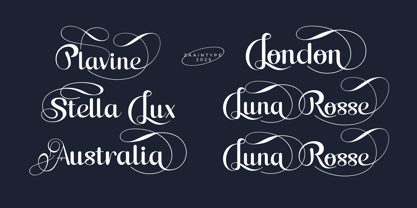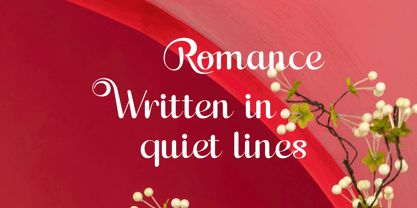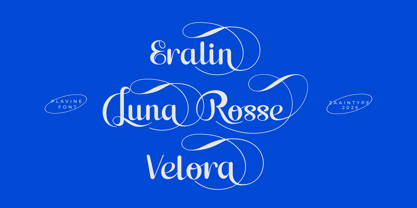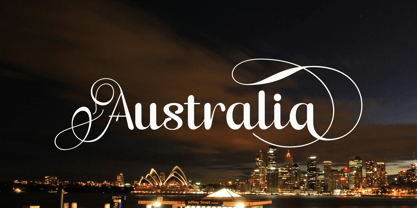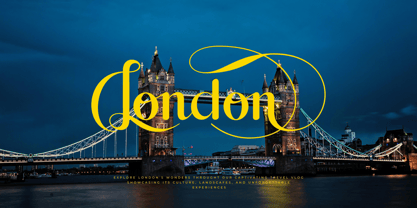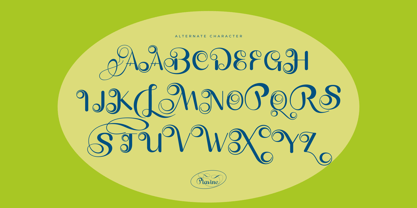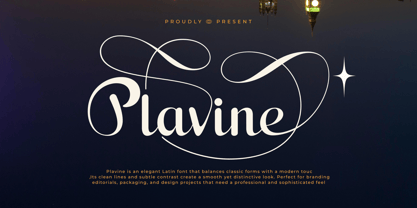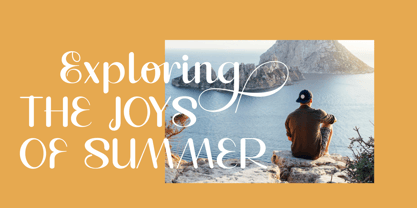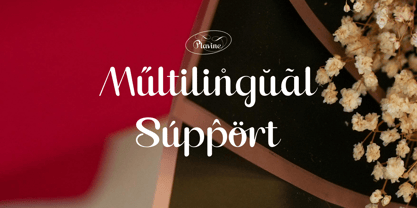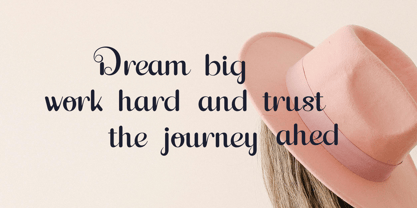
Plavine
by Zaain Type
The Plavine Font Family was designed by Ju Naen and published by Zaain Type. Plavine contains 1 styles.
Plavine is an elegant Latin font that beautifully balances timeless classic forms with a refined modern touch. Its carefully designed letterforms feature clean lines and subtle contrast, resulting in a smooth, graceful rhythm that enhances readability and visual harmony. Plavine’s sophisticated aesthetic makes it a versatile choice for branding, luxury packaging, fashion editorials, book covers, and high-end design projects that seek a polished, professional look. Whether used in headlines or body text, Plavine brings a sense of elegance and modern sophistication to any composition.
Designers: Ju Naen
Publisher: Zaain Type
Foundry: Zaain Type
Design Owner: Zaain Type
About Zaain Type
Zaain Type is a type foundry based in Purbalingga, Central Java. Specializing in high-quality type design, Zaain Type offers a range of fonts that combine traditional craftsmanship with modern aesthetics. Known for its meticulous attention to detail, the foundry produces typefaces suitable for various applications, ensuring readability and visual appeal. Inspired by the rich cultural heritage of Central Java, Zaain Type incorporates local artistic elements into its designs, contributing to the global appreciation of Indonesian typography.